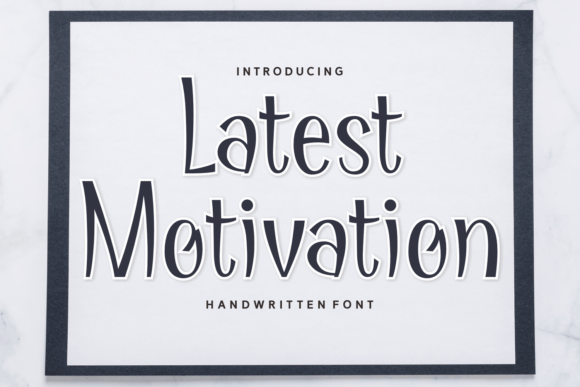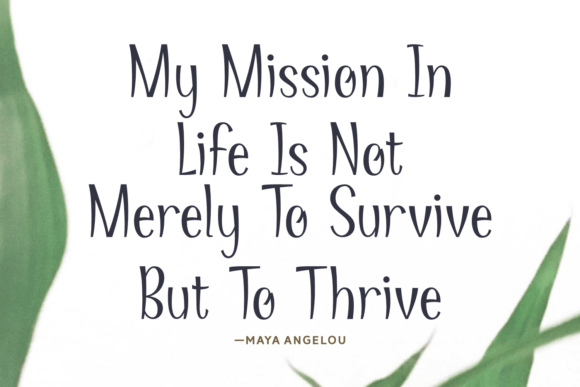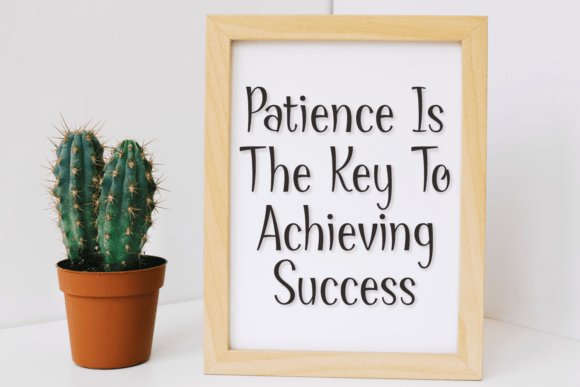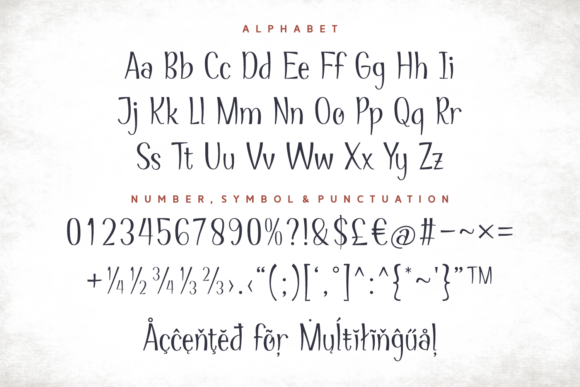
Latest Motivation Font
About the Latest Motivation Font
Presenting Latest Motivation Font, a unique and stylish typeface that will make your work stand out. Introducing “Latest Motivation,” is a charming handwritten font ringing with a sense of effortless simplicity. This tasteful display font is a dedication to minimalist design aesthetics. Ideal for comic or cartoon themes, it effortlessly brings an artisanal appeal to any creation. The design of “Latest Motivation” sparkles with a comforting aura and a romantic undertone, effortlessly infusing love into the art of font.
Perfect for note or quote-related designs, the clarity and legibility of this font make it a top choice for designers. Its cute typeface is versatile and ideally suited for a myriad of applications from apparel and T-shirt design, to product packaging, branding, invitations, labeling, and even poster designs.
Make a striking impression with accent pieces or choose this font for your next book cover design. An excellent choice for both masculine and feminine designs, its clean and crisp lines hold a distinct appeal for Eastern European aesthetics. “Latest Motivation” does more than garnish your design. It becomes an essential part of the narrative.